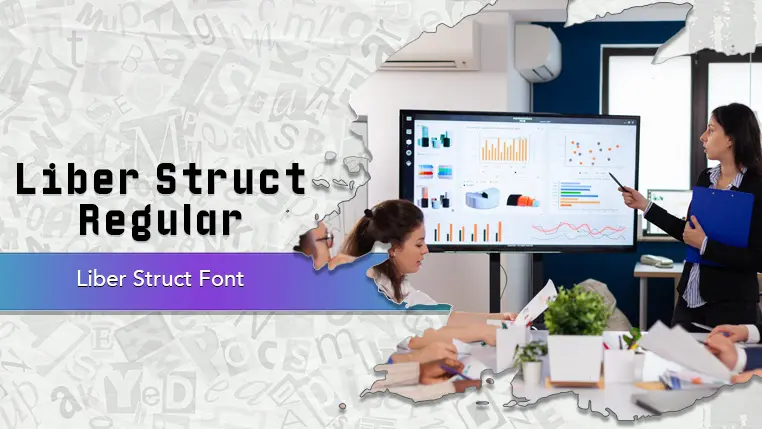
The Liber Struct font family may be ideal for you if you enjoy working on an artistic design project. The lively, expressive look of this typeface, which was created by GGBotNet, makes it ideal for Perfect for companies and brands that want to convey a sense of innovation, technology, architecture, engineering, or a minimalist yet strong identity. Its clear, bold forms make it highly effective for headlines, subheadings, and titles in posters, websites, magazines, and presentations. Its clean lines and readability at various sizes make it suitable for digital interfaces, app designs, and interactive elements where clarity and a modern look are crucial. Ideal for websites, presentations, or publications in the tech, science, or industrial sectors. Can be used for text overlays, titles, and graphic elements in digital art, animations, and video intros. and other light-hearted visual projects.
Regular are the one primary font styles of the Liber Struct font family. You may build dynamic, visually appealing text layouts with the distinct flair that each style offers. With crisp, readable lines and a relaxed tone.